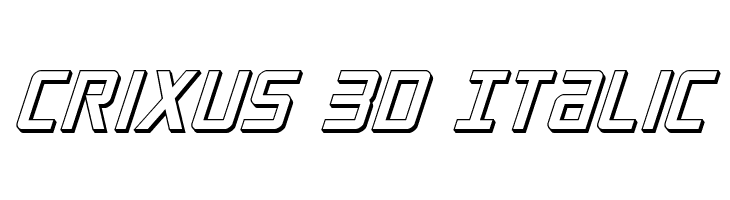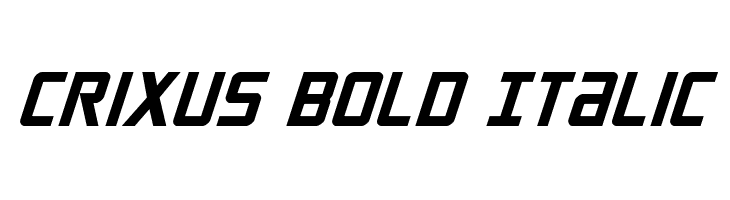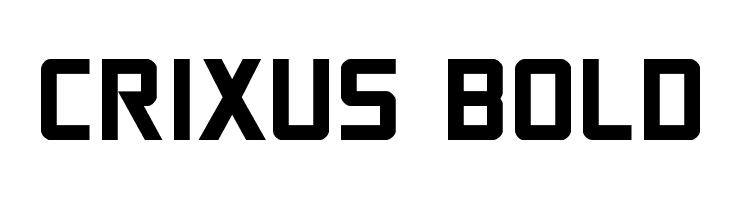
A bold, geometric stencil font with a modern, industrial aesthetic.
A bold, italic font with sharp angles and a dynamic, modern style.
A bold, geometric stencil font with a modern, industrial style.
A bold, condensed italic font with a modern, dynamic style.
A bold, geometric font with a modern, industrial stencil style.
A bold, expanded, and italicized font with a modern and dynamic style.
A bold, italicized font with a futuristic and dynamic style, featuring sharp angles and cut-out sections.
A bold, stencil-like font with a leftward slant and modern appeal.
A bold, geometric font with a modern, industrial stencil-like design.
( Fonts by Jester Font Studio )
An ornate, vintage-style decorative font with intricate detailing.
A bold, geometric font with a modern and impactful style.
A bold, blocky font with a modern, industrial feel.
A bold, italicized font with strong, angular lines and a modern aesthetic.
A bold, italic font with a dynamic and futuristic style.
( Fonts by Neale Davidson - www.pixelsagas.com )
A bold, oblique font with a modern, dynamic style.